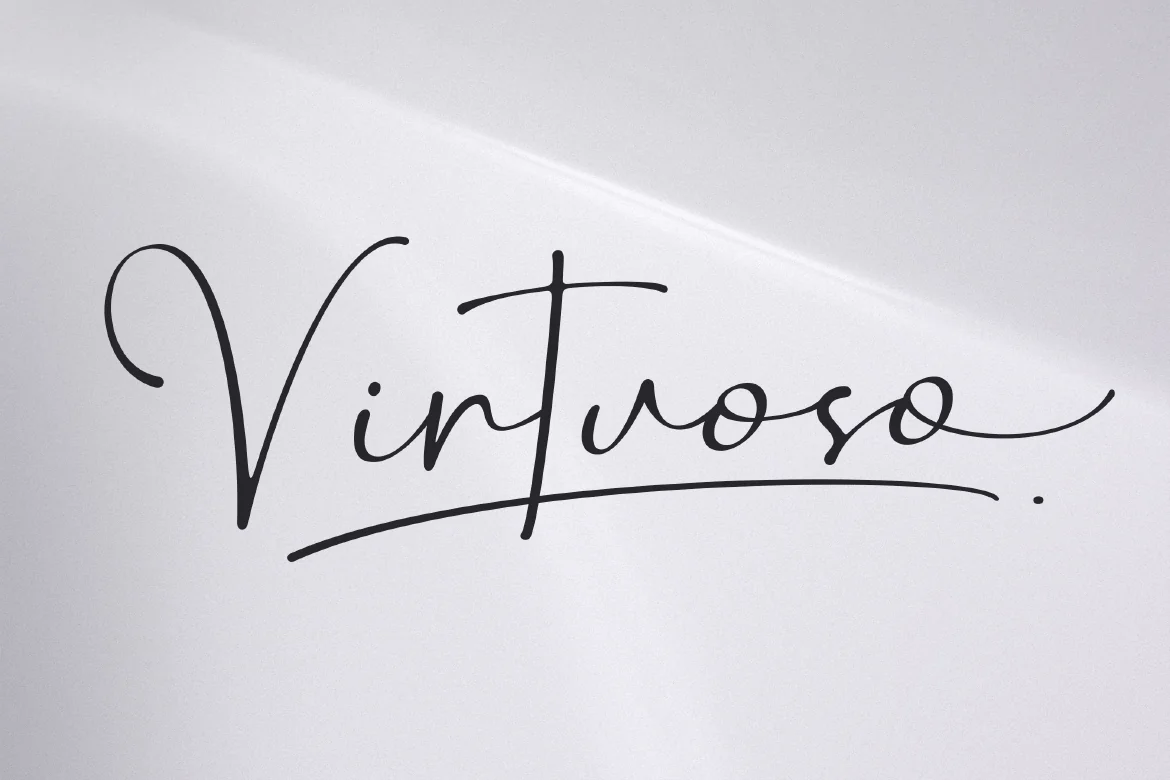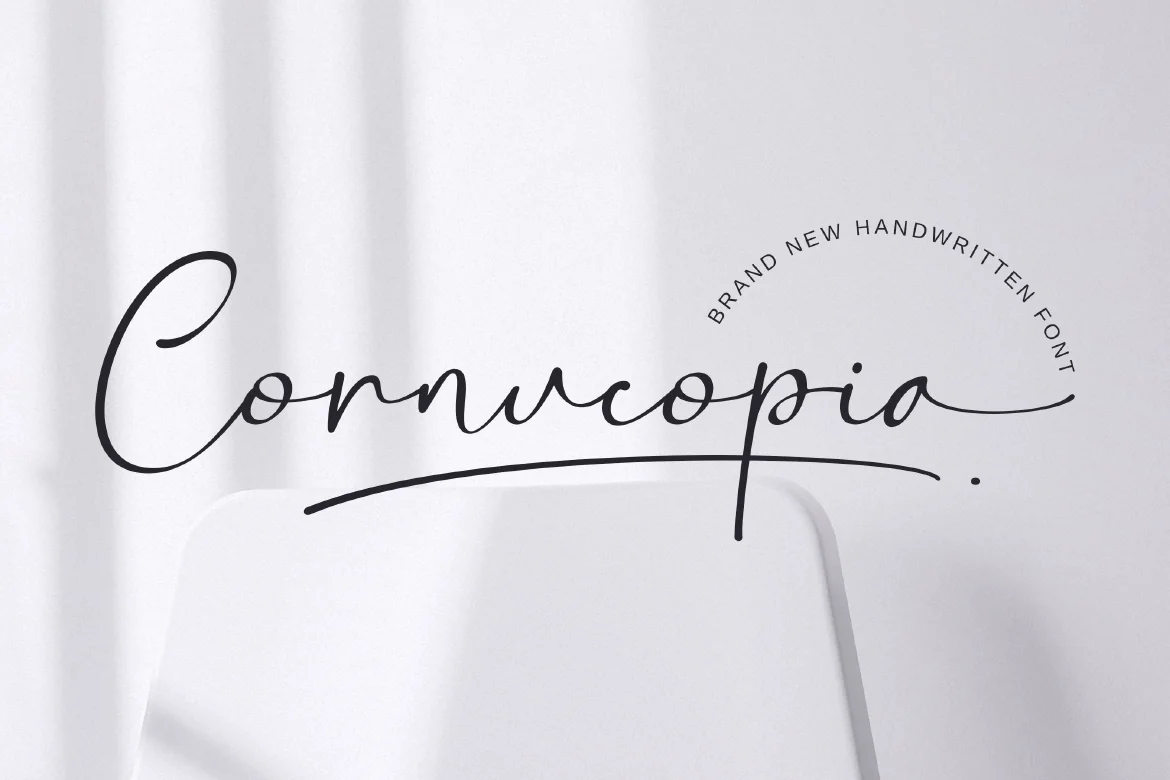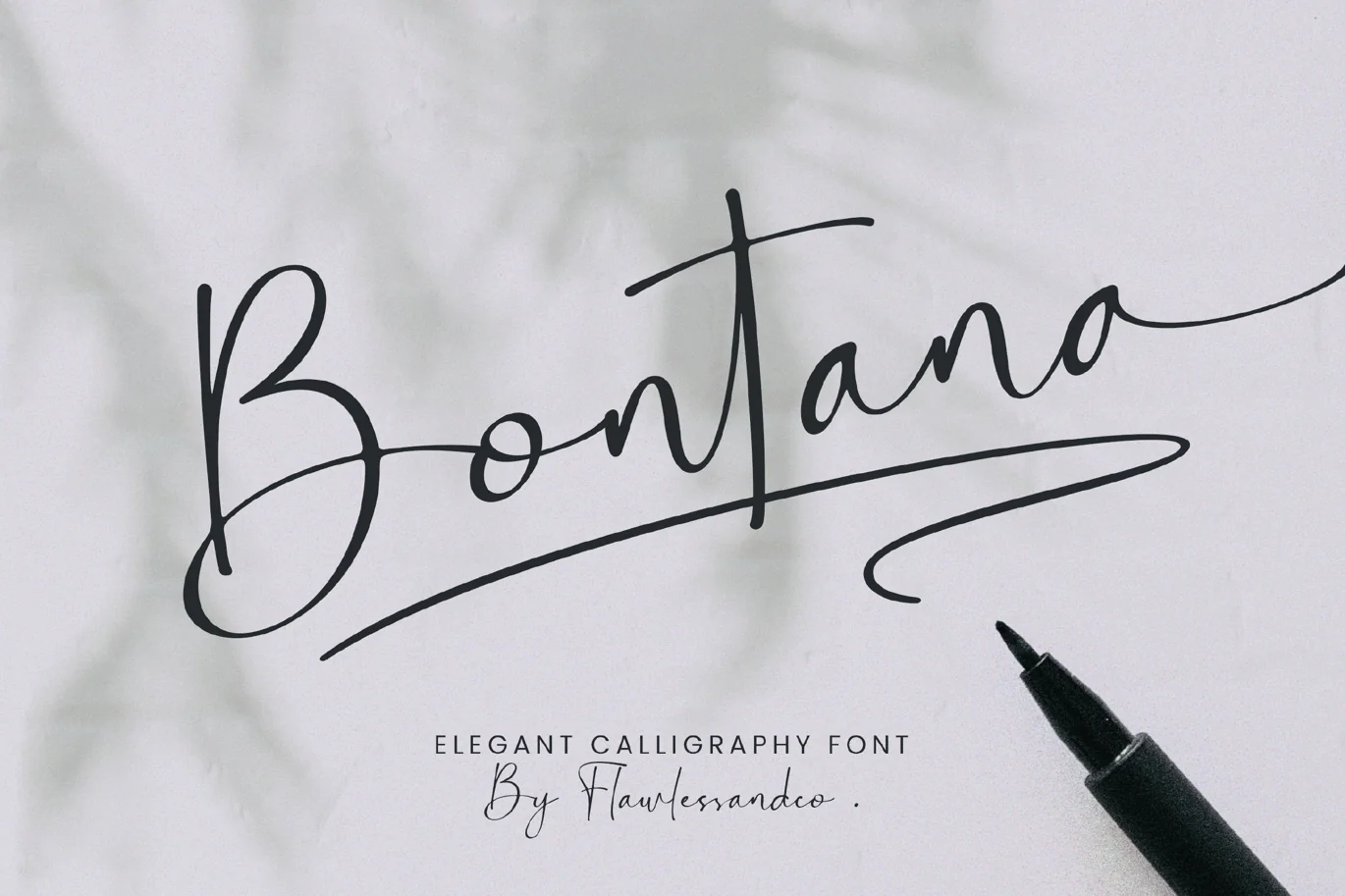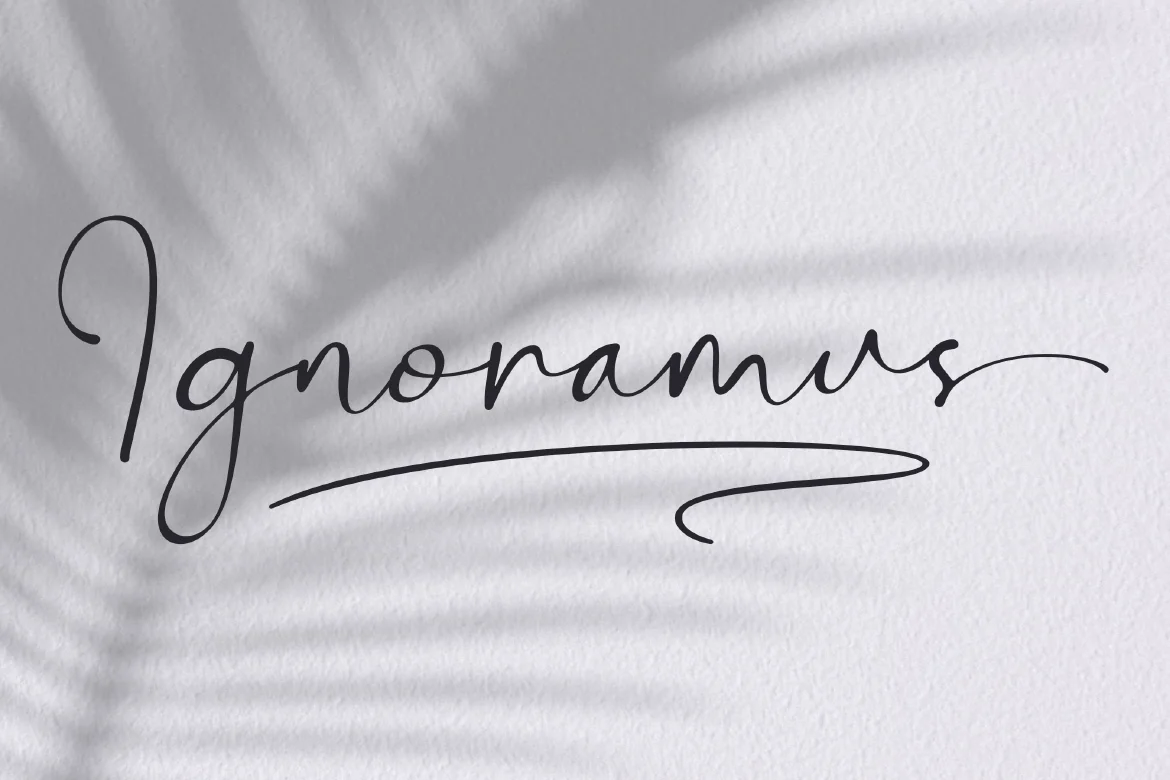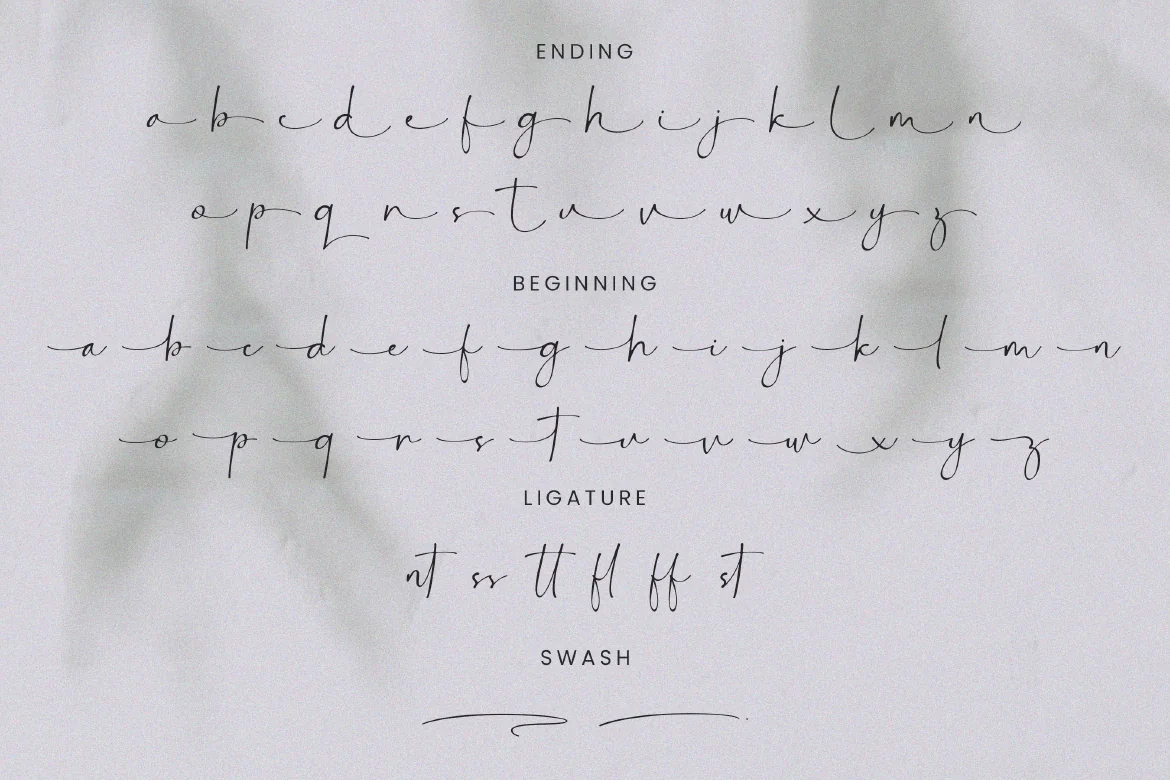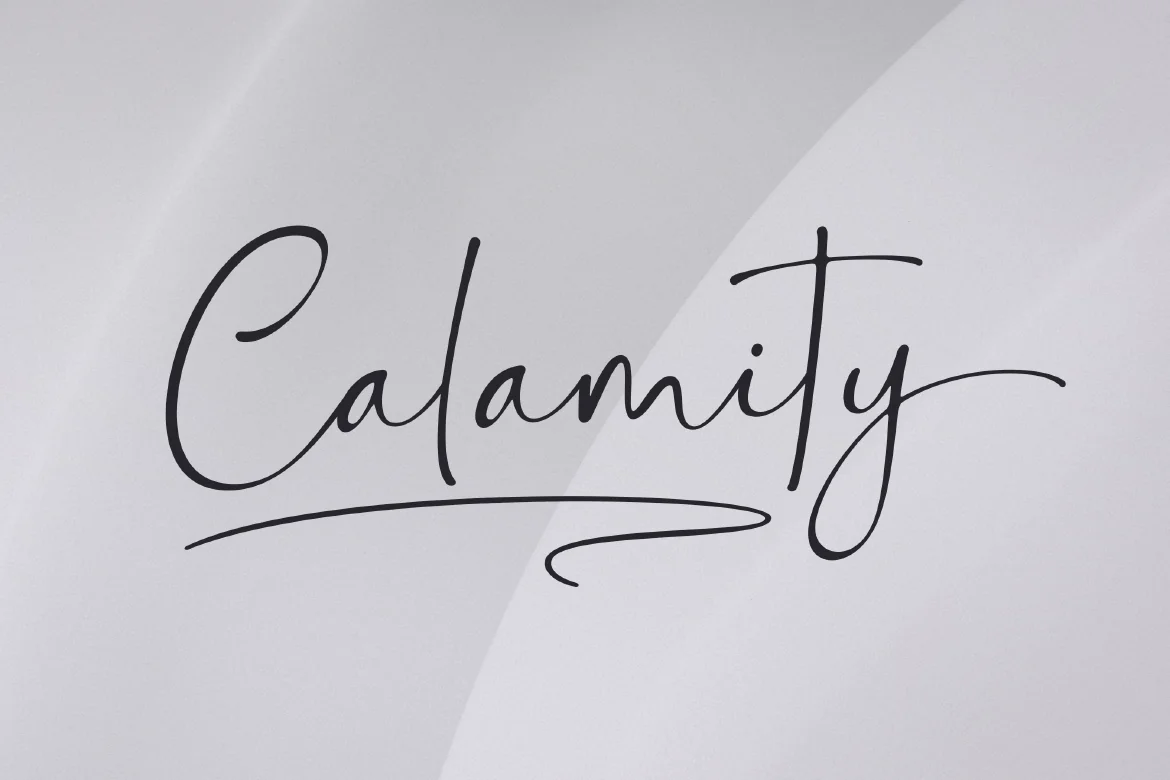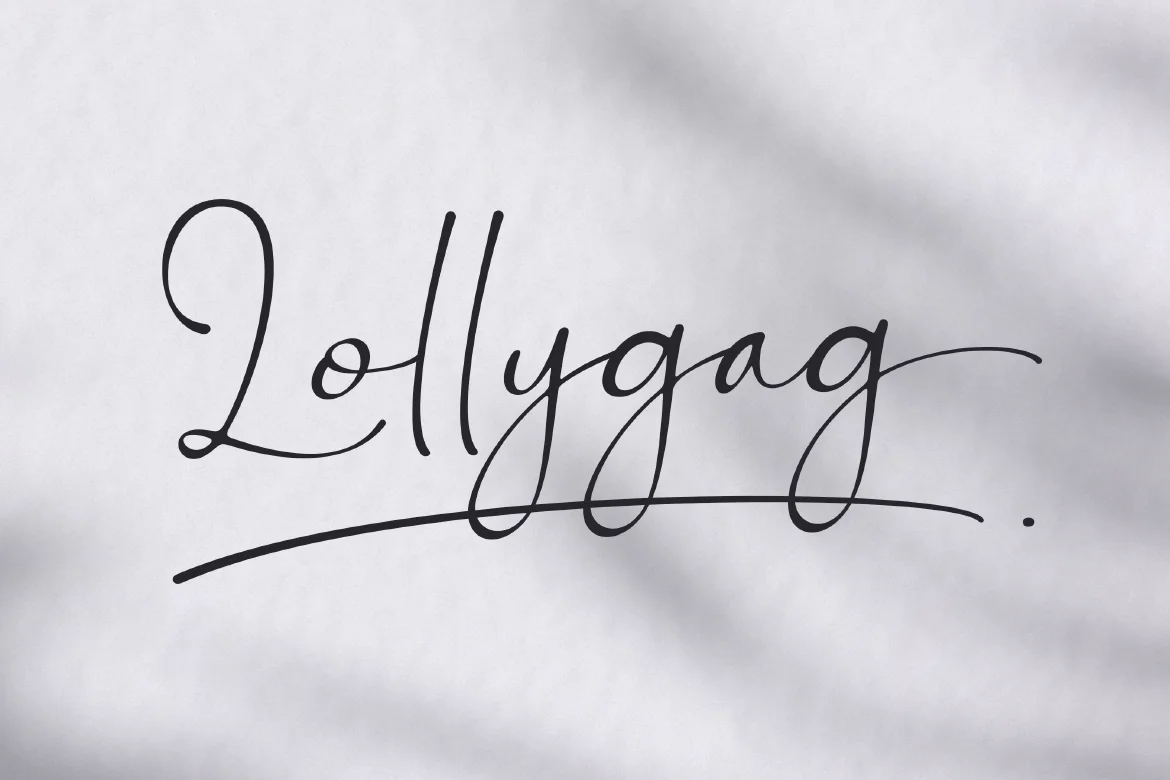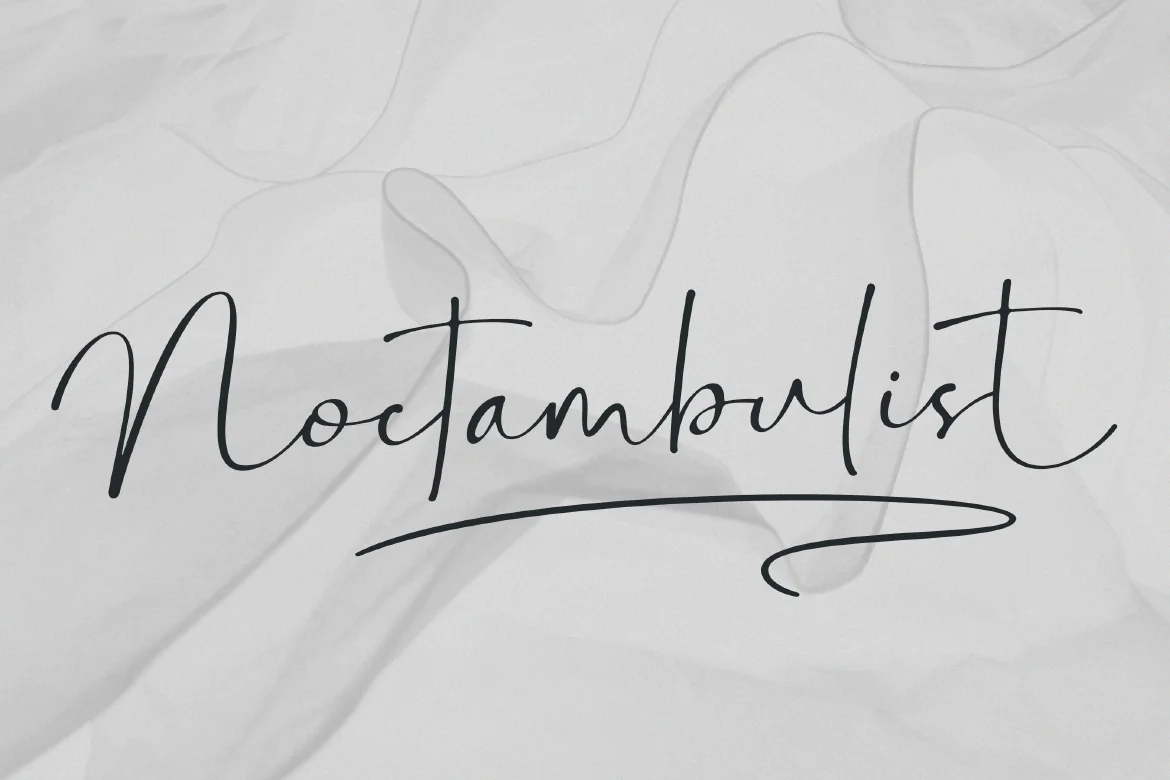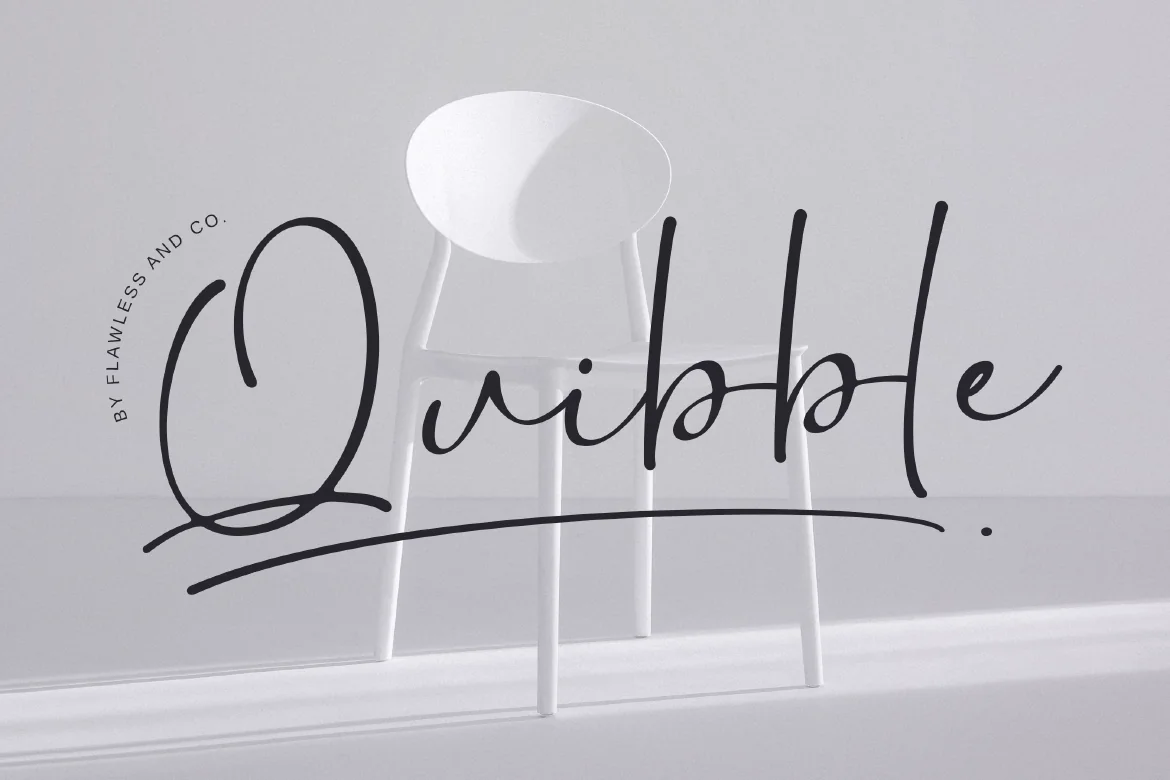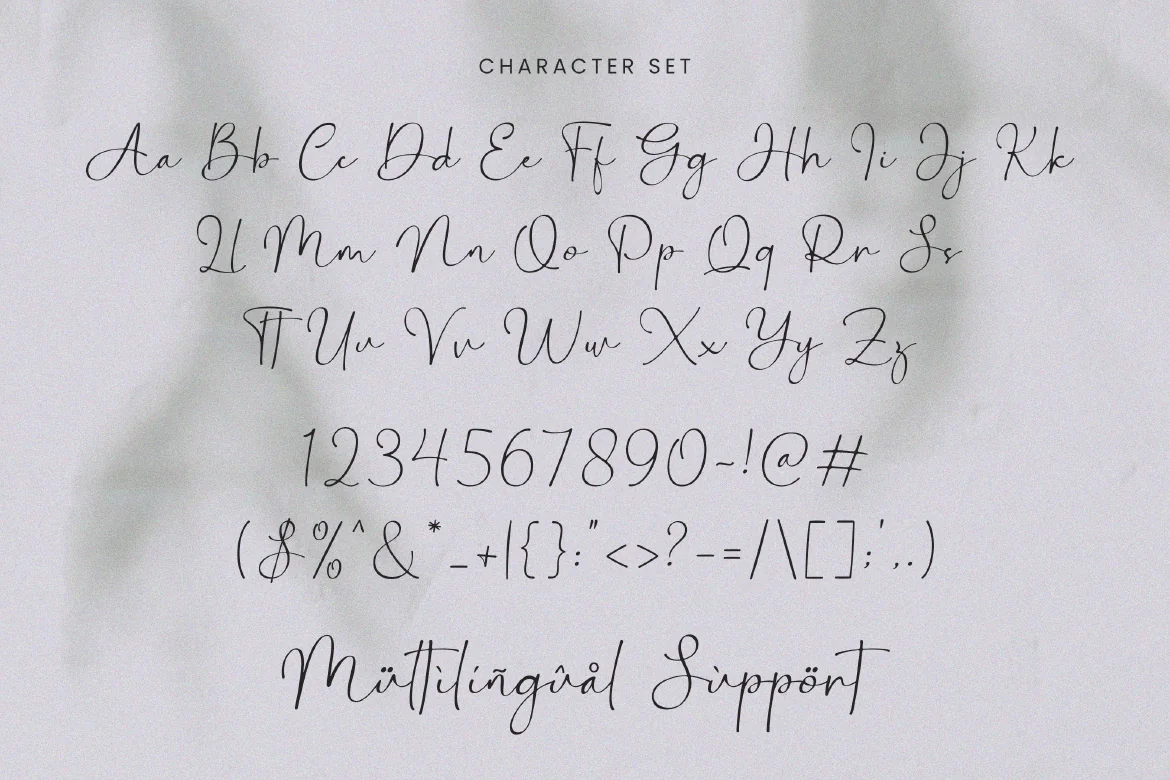
Bontana – Elegant Calligraphy Font
Introducing “Bontana” – An Elegant Calligraphy Font. Elevate your designs with the timeless beauty of “Bontana,” an exquisite calligraphy script font that embodies elegance and sophistication. With its flowing strokes and graceful curves, “Bontana” is crafted to add a touch of refined charm and luxurious style to your projects.
Alternate Character